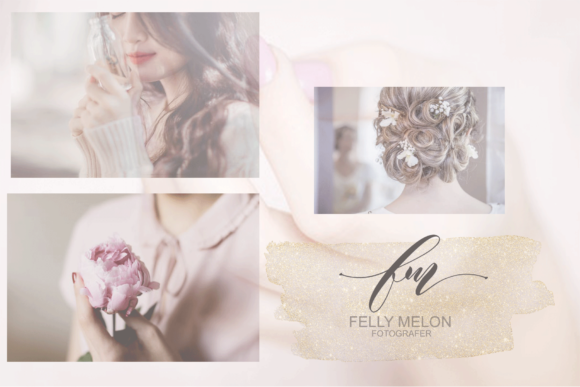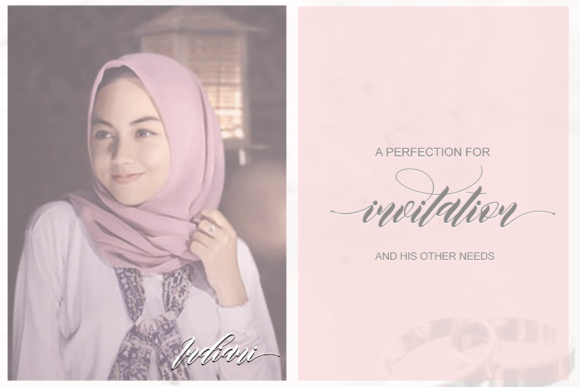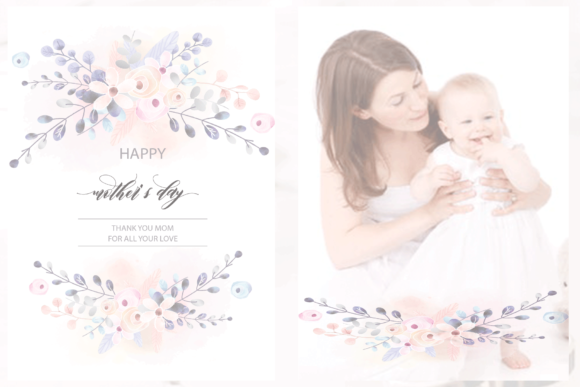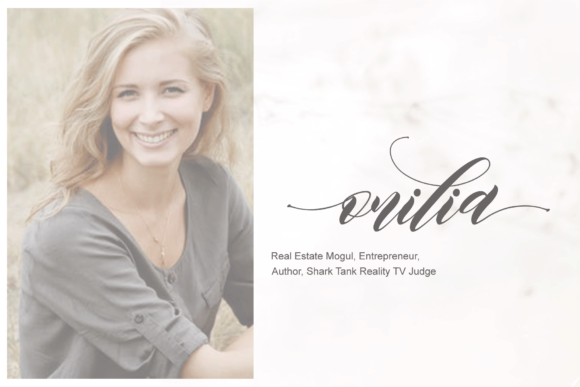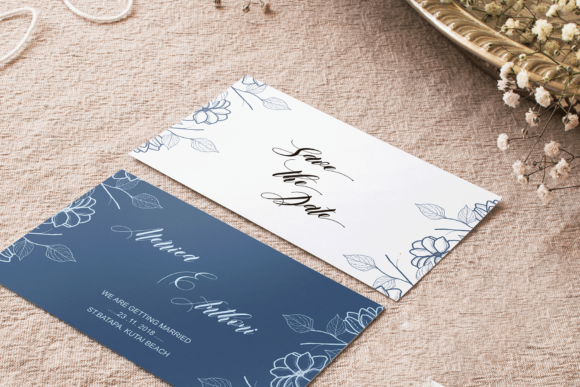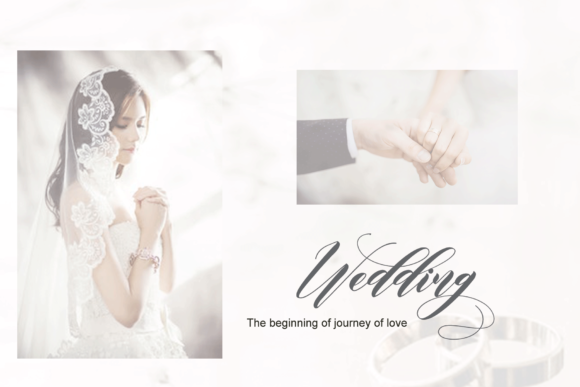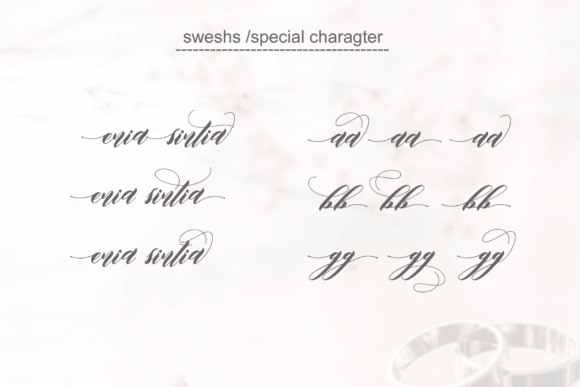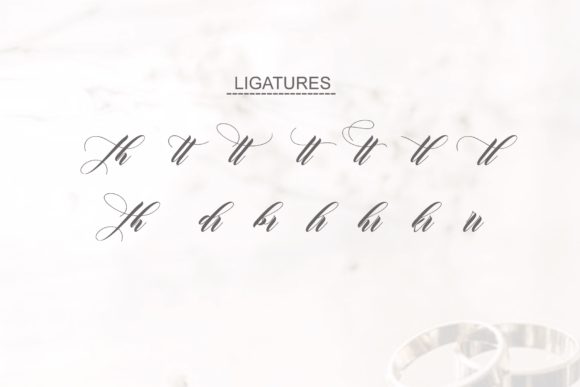
HomeScript FontsEdore Font Script Fonts Edore Font FacebookXPinterestWhatsApp Edore Font Poster 2 Edore Font Poster 3 Edore Font Poster 4 Edore Font Poster 5 Edore Font Poster 6 Edore Font Poster 7 Edore Font Poster 8 Edore Font Poster 9 About Edore Font Edore is a classy script font with lovely curves. It will add a romantic touch to any crafting project! DOWNLOAD NOW People also explored Floral Wedding Font Fishing Font Onesty Signature Font Tekhomazia Font Berliana Script Font Makasih Font Rayya Font Rallia Irma Font Main Street Bungalow Font 515 0 TagsEdore Font Previous articleMetic FontNext articleSoutham Font LEAVE A REPLY Cancel reply Comment: Please enter your comment! Name:* Please enter your name here Email:* You have entered an incorrect email address! Please enter your email address here Website: Save my name, email, and website in this browser for the next time I comment. Personal Use Free Bestlife Personal Use Free Read more about this font William Personal Use Free Read more about this font Barokah Personal Use Free Read more about this font Earwig Factory Personal Use Free Read more about this font BLOG How to Install and Use Fonts on Windows, macOS, and Web Projects How to Install and Use Fonts on Windows, macOS, and Web Projects Fonts are a crucial part of design and branding. Whether you’re designing a... Top 10 Handwritten Fonts That Elevate Your Designs Using Fonts in Digital Marketing: Tips to Strengthen Your Brand Identity Exploring Font Trends